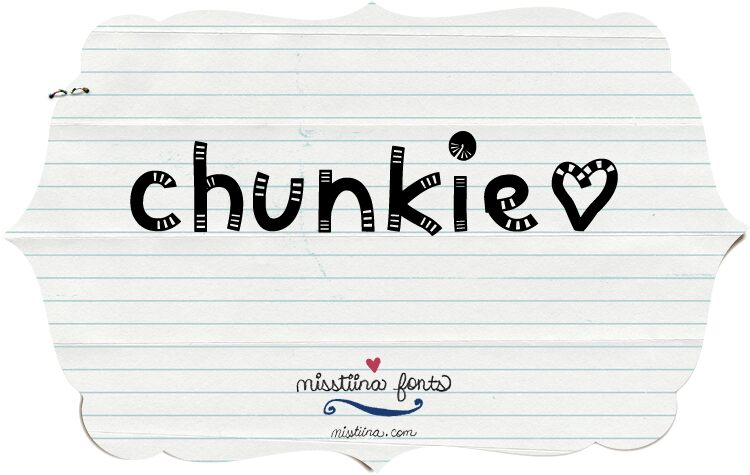
MTF Chunkie by Tiina Raparanta of MissTiina Fonts is a free cartoon display font with plump, uneven strokes. Rounded letters wobble like soft tubes, crossed by narrow striped breaks. It has a cheerfully handmade finish.
The striped cuts echo stitching and wrapped bands, letting the letters join cartoon illustrations as objects. This makes it useful for children's book covers, toy packaging, and party posters. It speaks most directly to young children and family audiences.